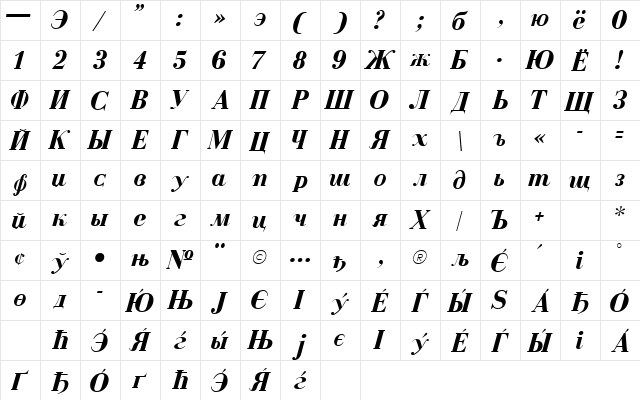
COLOURB Regular
Design Context for COLOURB Typeface
COLOURB is a composed and adaptable typeface that performs quietly and consistently across a wide range of design contexts.